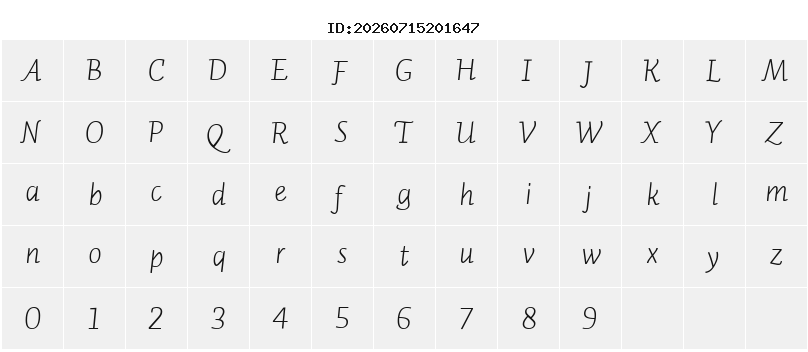
• Font Name: Auto 2 Lt LF
• Font ID: Underware: Auto 2 Light Italic LF: 2004
Auto 2 Lt LF.ttf is a modern, elegant sans-serif font designed for ultimate readability and visual harmony. Perfect for branding, headlines, web design, and print materials.